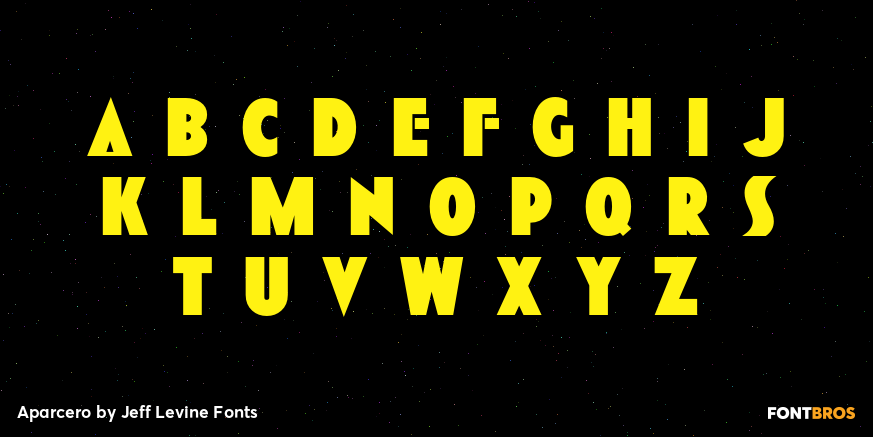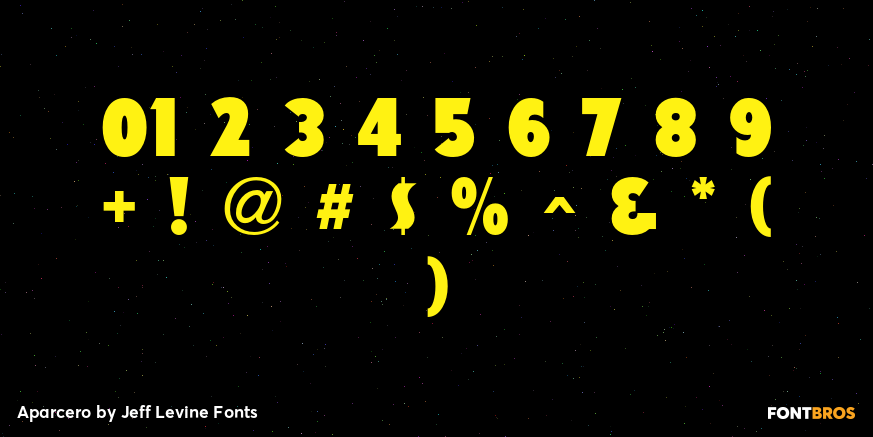
Aparcero
Vintage sheet music with the title of 'Aparcero' lettered in a bold, Art Deco sans is the basis for Aparcero JNL. The title is a Spanish word that translates to 'tenant farmer' or 'sharecropper'.